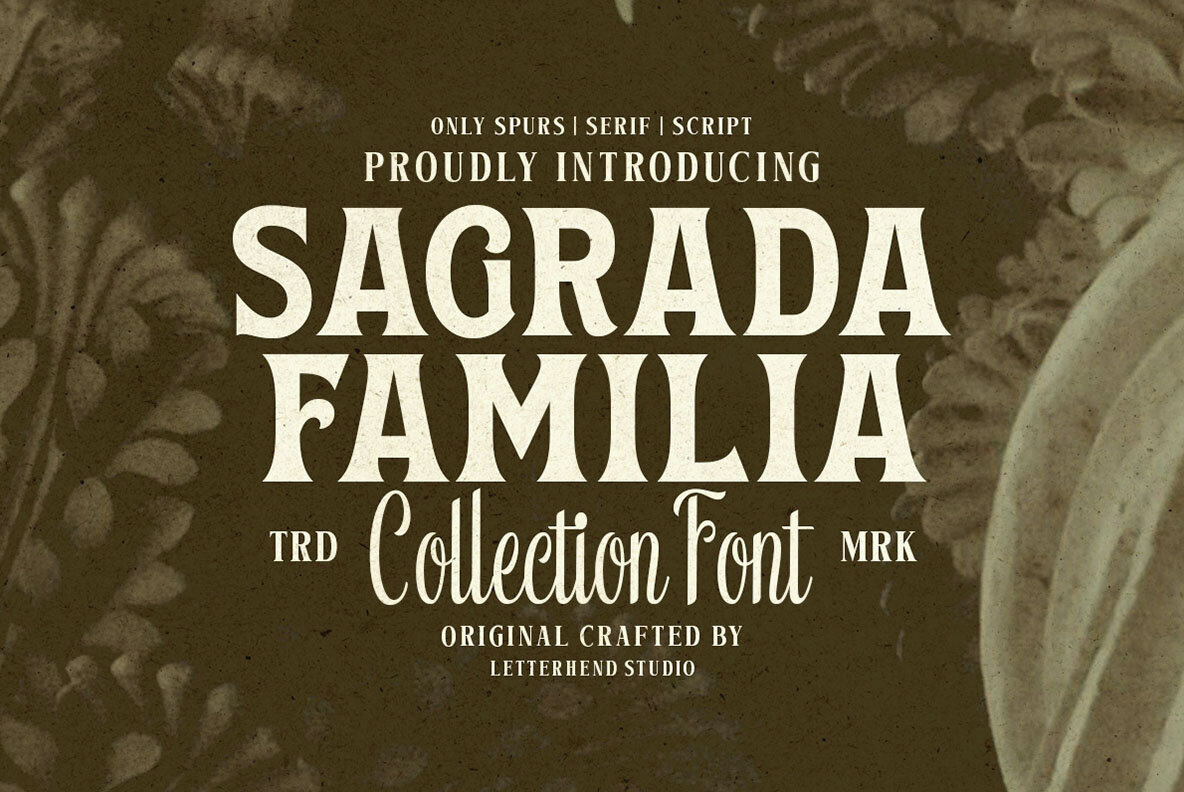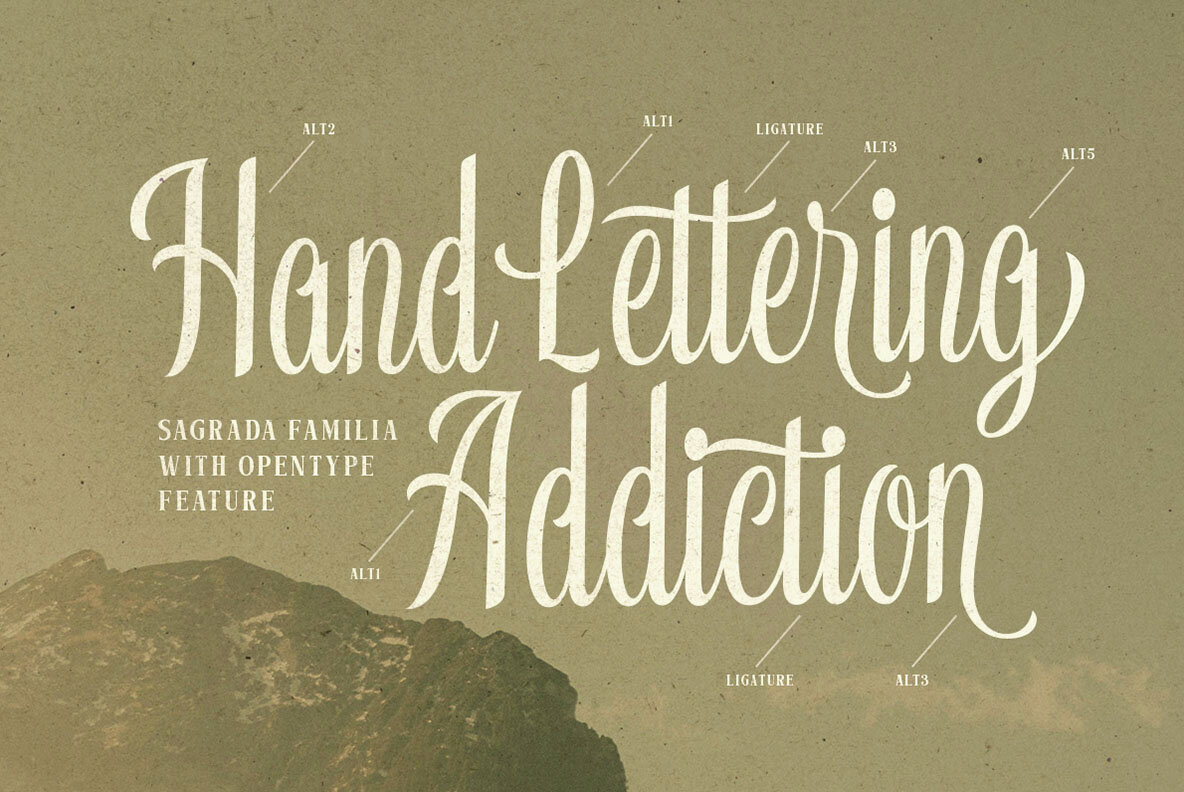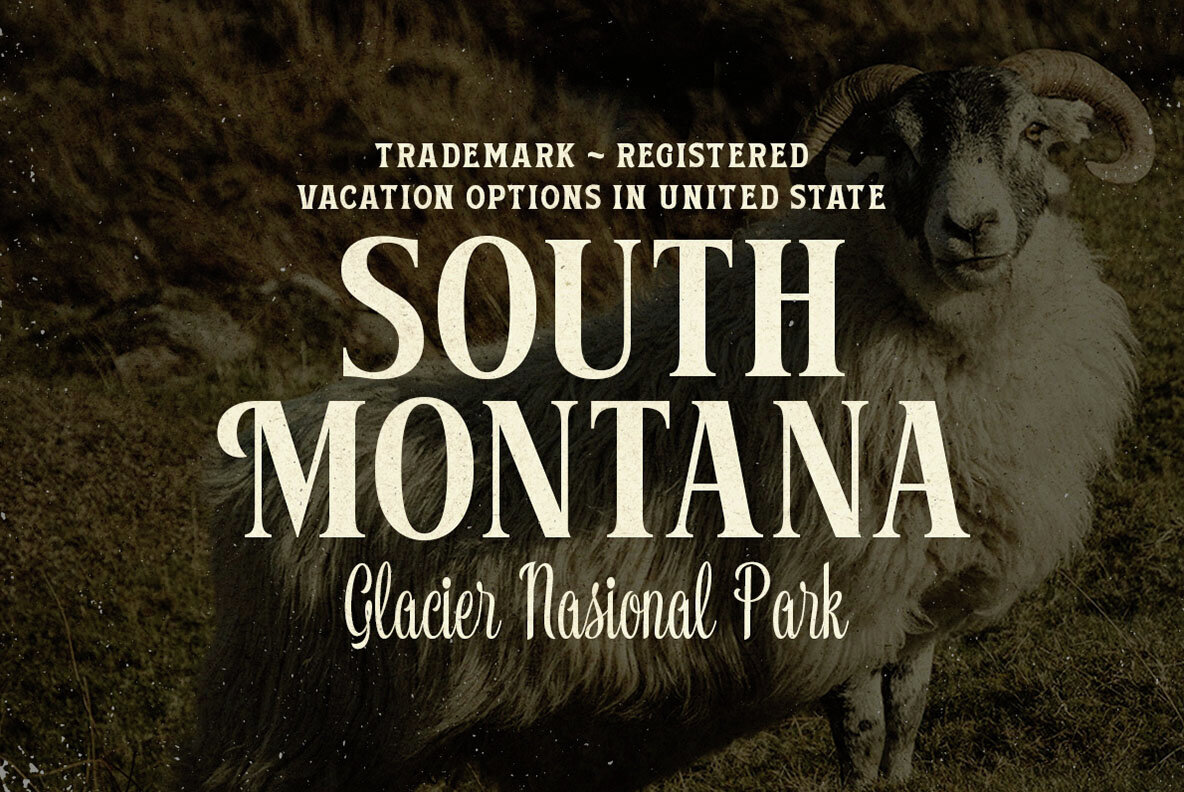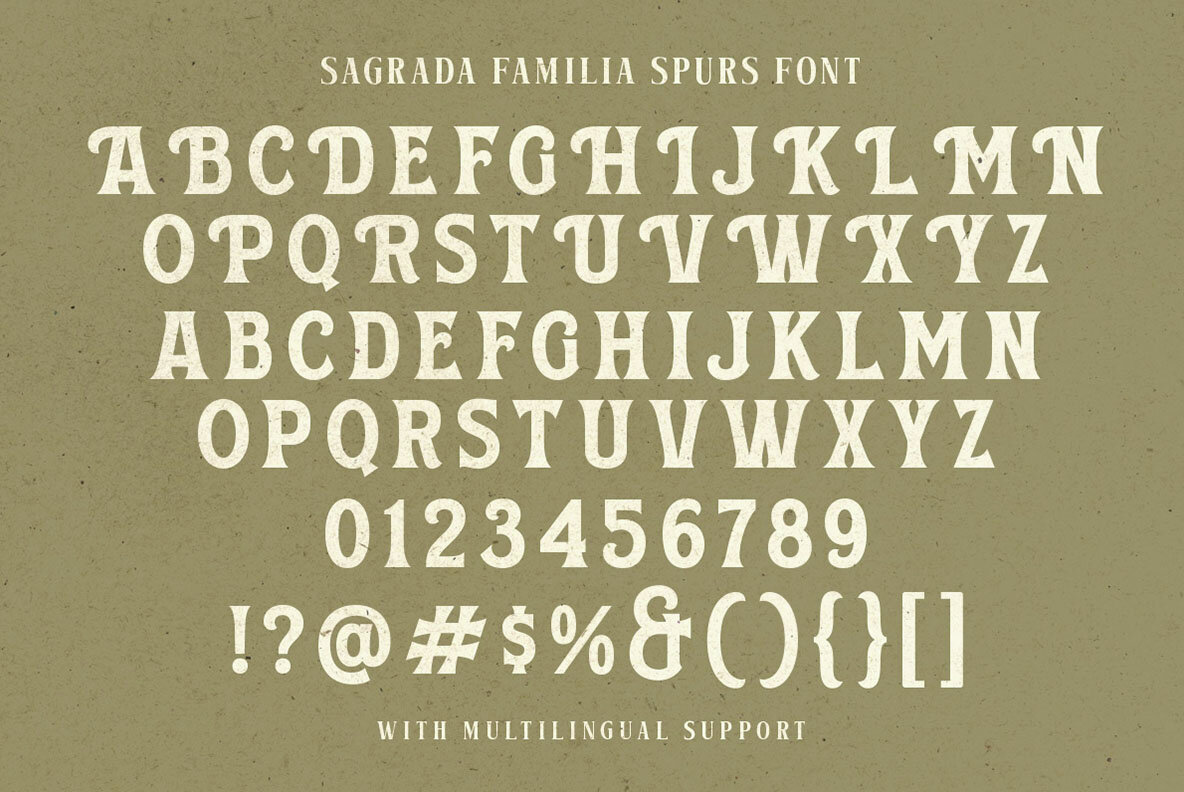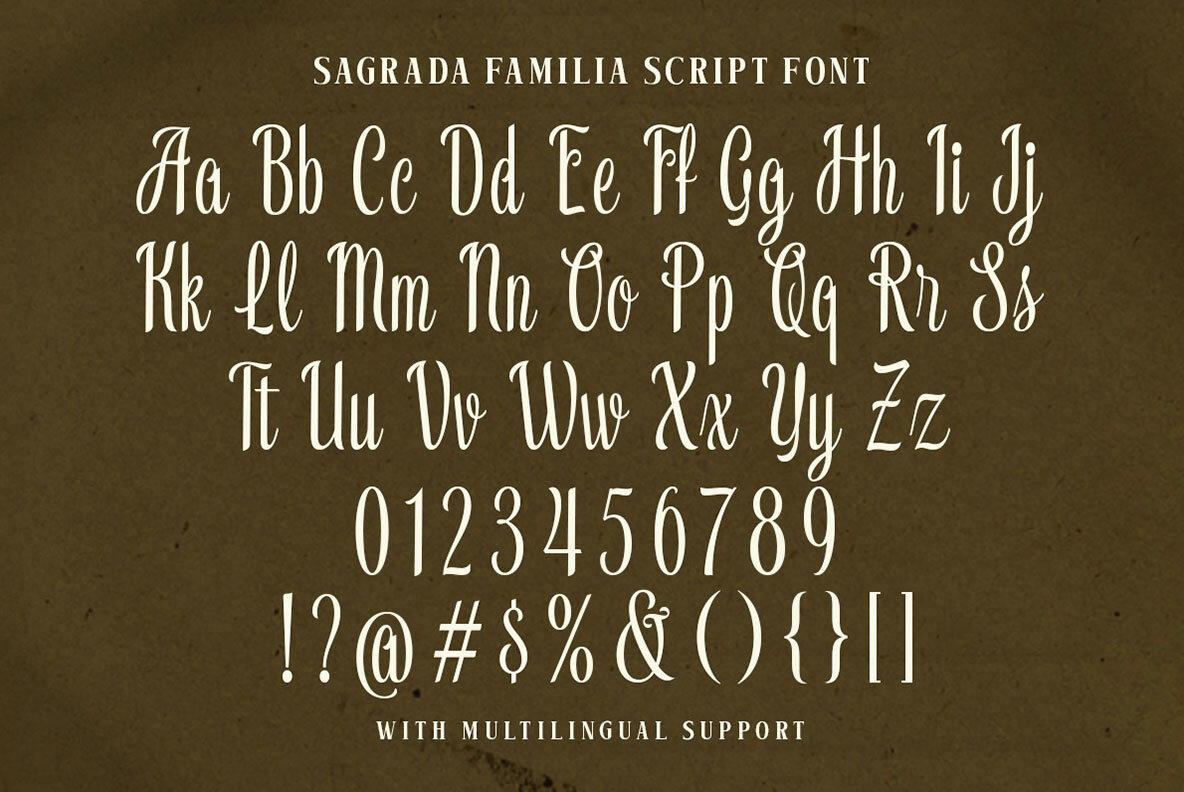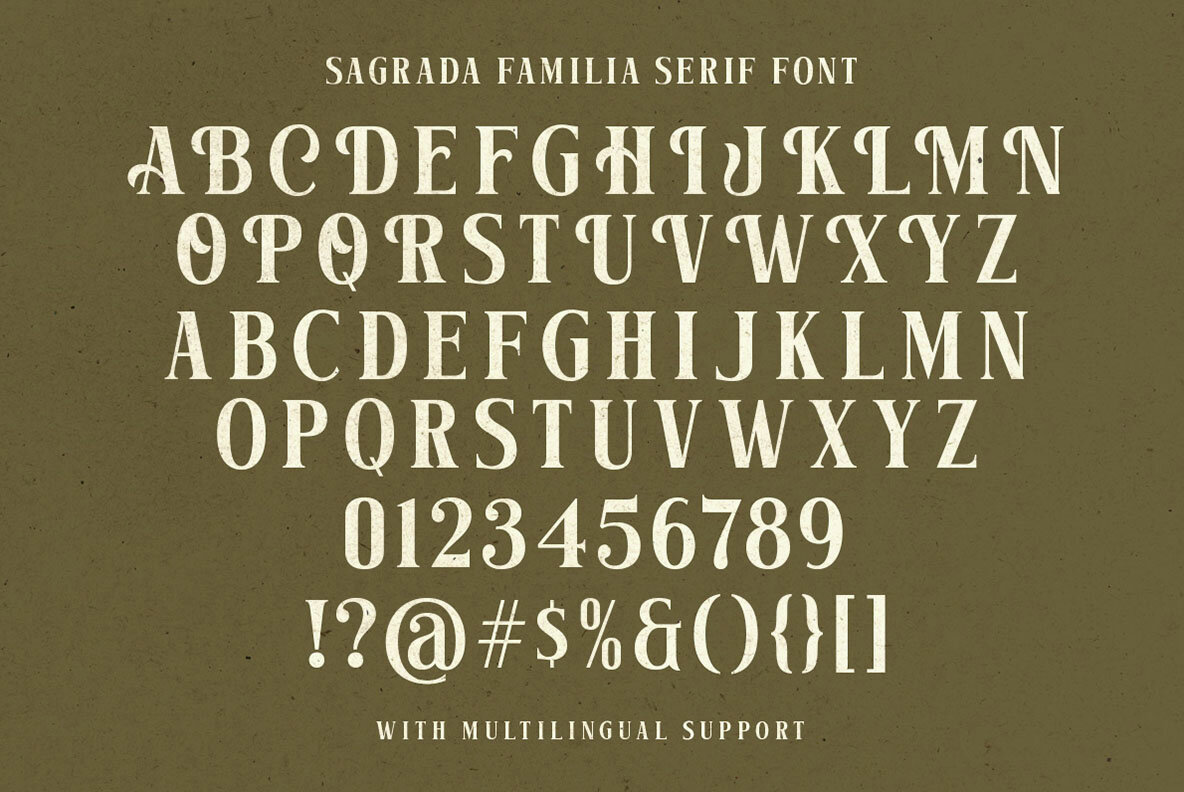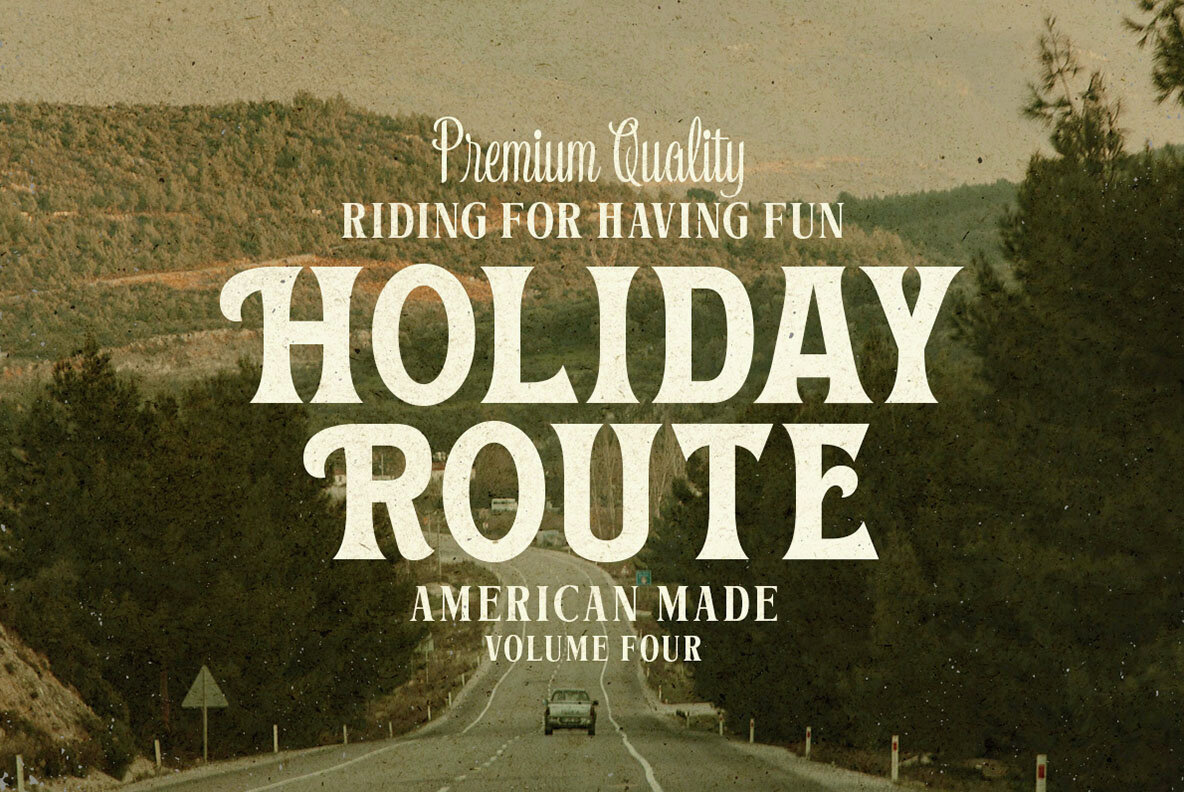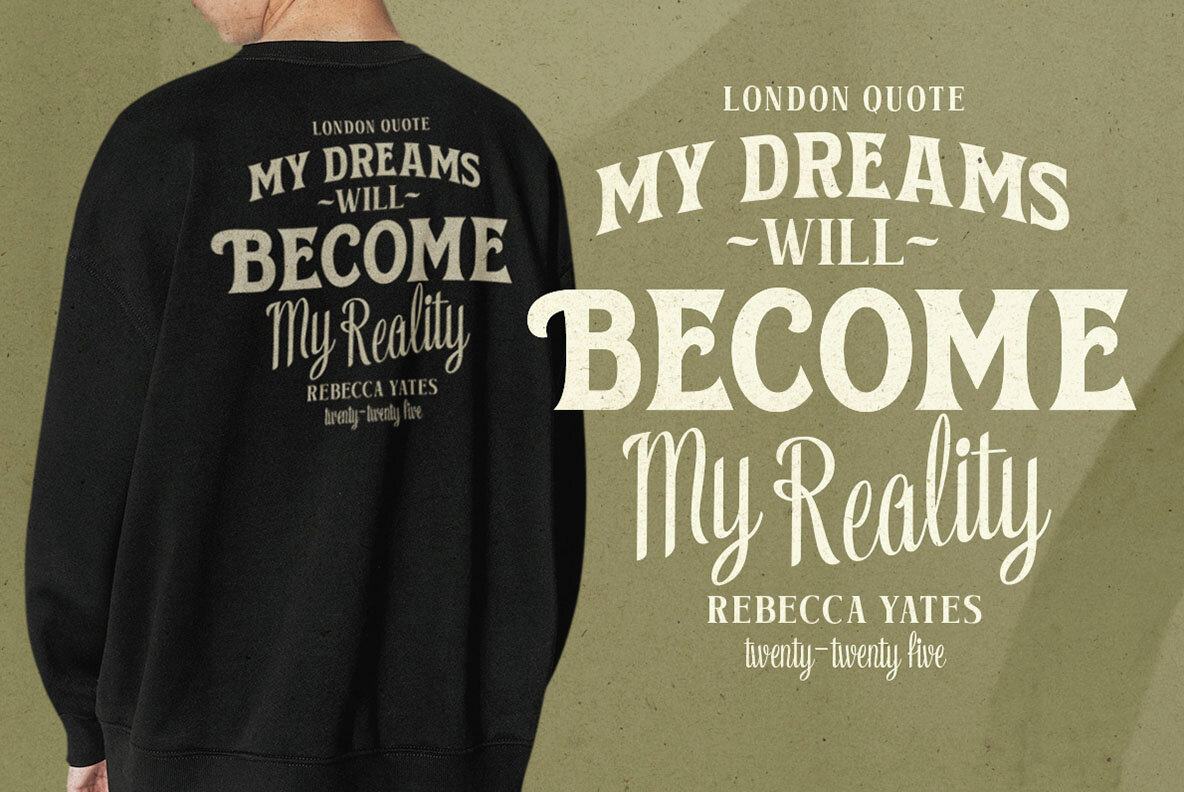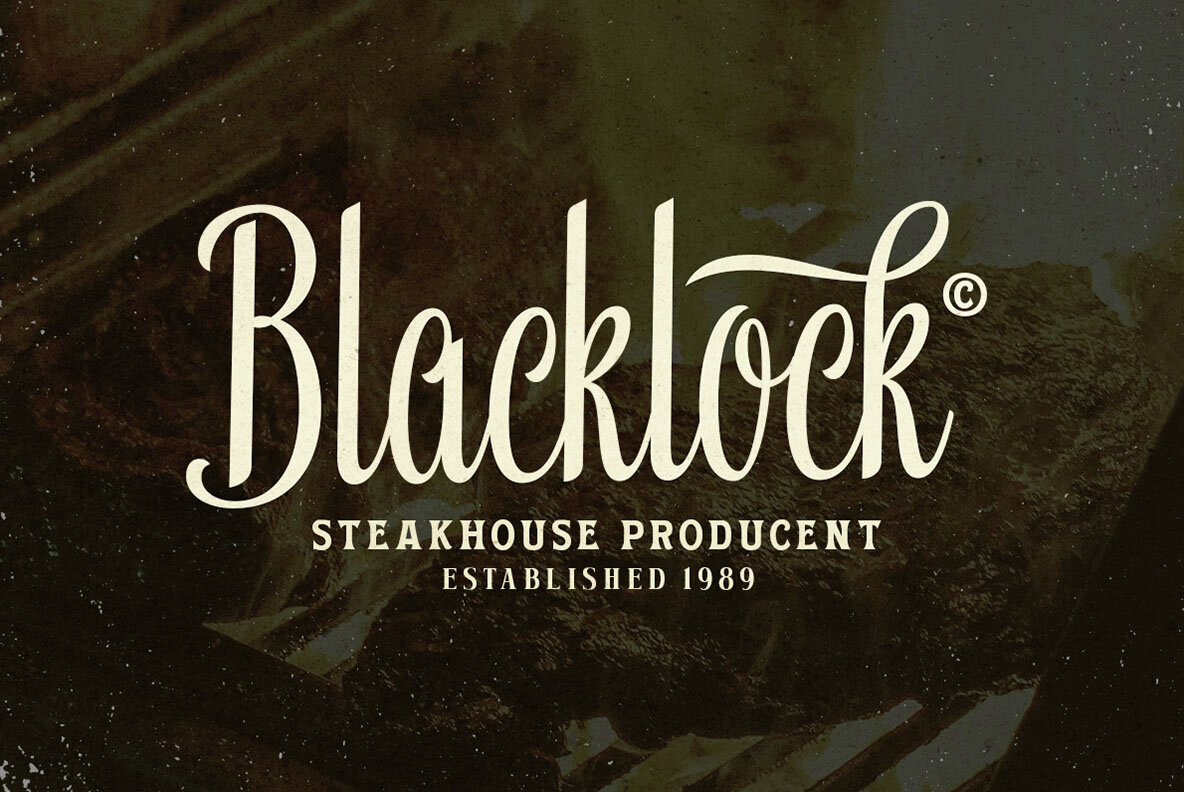
Sagrada Familia Font
Sagrada Familia is a vintage-inspired display font collection that combines serif, spurred, and script styles in one elegant package. This font brings a classic and timeless feel with a strong touch of tradition, ideal for branding, logos, packaging, and editorial projects that seek an old-world charm with a refined personality. Features: We highly recommend using a program that supports OpenType features and Glyphs panels like many of Adobe apps and Corel Draw, so you can see and access all Glyph variations.